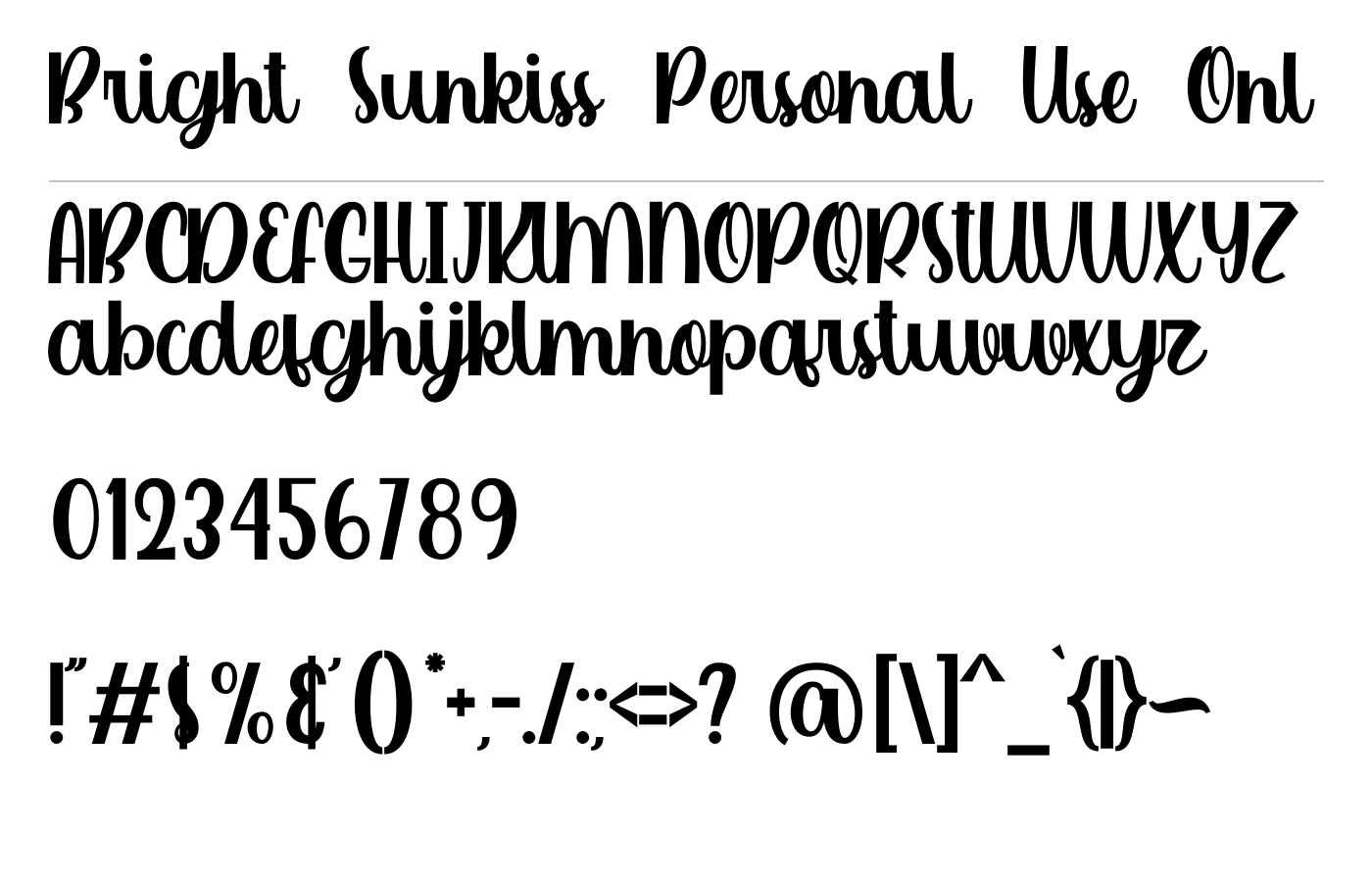
Bright Sunkiss Personal Use Onl is a playful and elegant script font with a warm, hand-lettered feel. Featuring smooth, moderately thick strokes with rounded edges and a lively, slightly condensed style, it combines readability with charm, making it ideal for creative projects like logos, invitations, and branding that seek a friendly, approachable vibe. Its mix of unique letterforms and consistent flow captures a modern yet whimsical personality perfect for personal and lifestyle designs.
Bright Sunkiss Personal Use Onl Font
About Bright Sunkiss Personal Use Onl Font